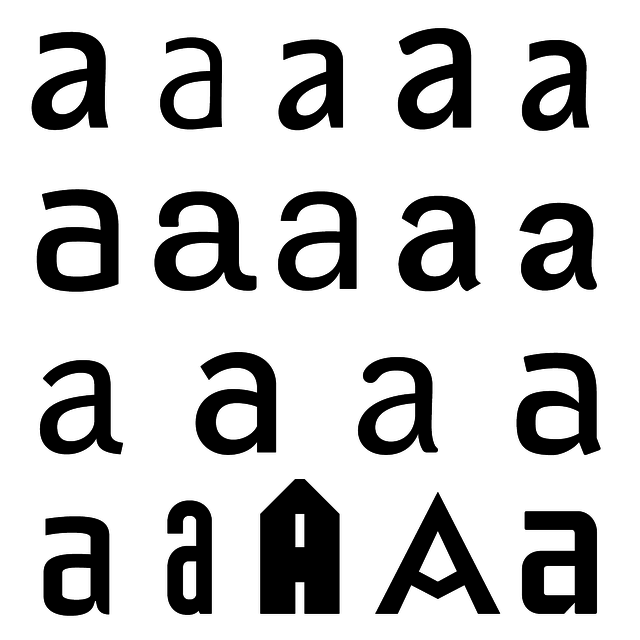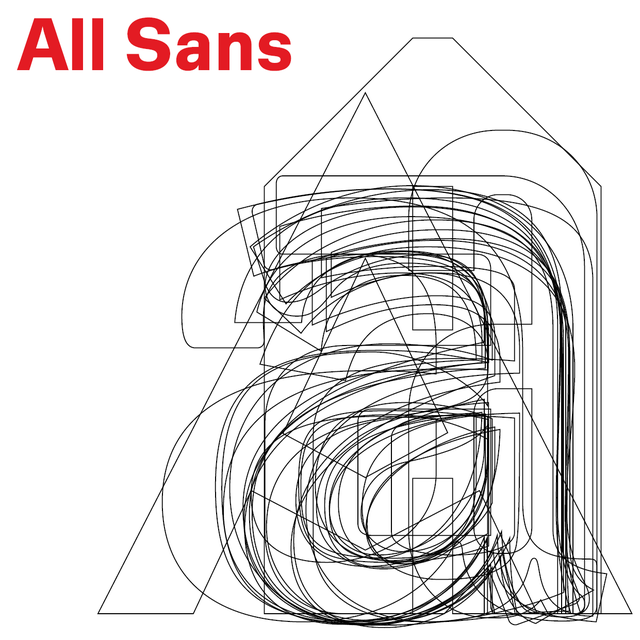
19 original sans-serif families from Stomtype library with timeless value. It contains a wide range of expressions from rational through decorative, historical, to rather emotional. This package will meet nearly every requirement on design, signage, publishing, advertising and corporate identity.